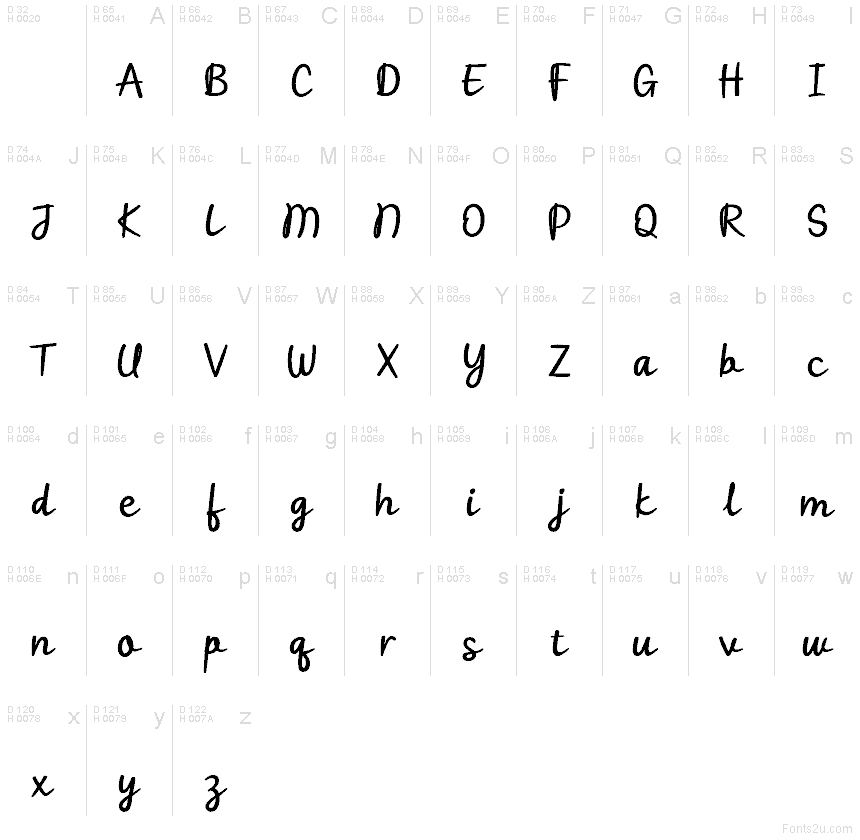
CS Ricotta Regular Demo
CS Ricotta font by Craft Supply Co. is a free semi-bold handwritten font. Built with smooth, inky strokes and rounded terminals, it nails that sweet spot between friendly warmth and clean legibility. The gentle slant and subtle baseline bounce add personality without sacrificing clarity, while the even rhythm and open counters keep lines readable at both headline and subhead sizes.
Using CS Ricotta, you get handwriting charm that actually scales for real-world work. It shines on cafe menus, artisanal packaging, recipe cards, social posts, boutique branding, event signage, and stickers. The approachable spacing helps short phrases pop without crowding. Pair this free font with a crisp, low-contrast sans for body copy, and let CS Ricotta carry the headlines at 120–140% line height.